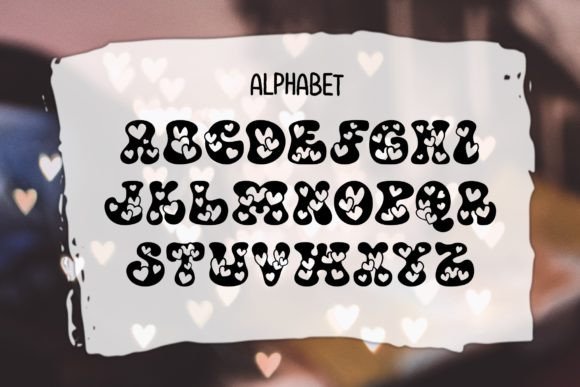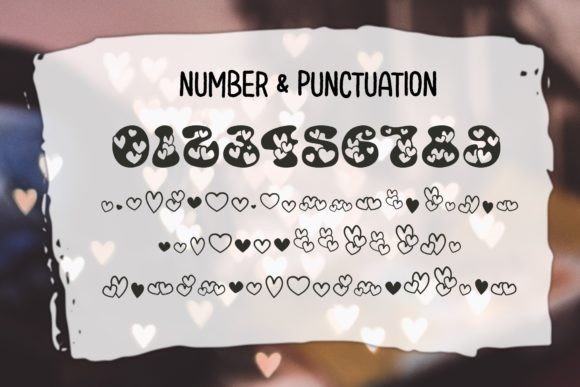
Groovy Love Font: Add a Touch of Whimsy to Your Designs
Are you tired of using the same old fonts in your designs? Do you want to add a touch of personality and whimsy to your projects? Look no further than the Groovy Love Font! This fun and incredibly cute decorative font is perfect for designers and crafters who want to make their designs stand out.
What is Groovy Love Font?
Groovy Love Font is a decorative font that is whimsical and a bit quirky. It’s the perfect addition to any design project that needs a little extra flair. With its unique and playful style, this font is sure to brighten up each of your designs and make them truly unforgettable.
Characteristics of Groovy Love Font
So, what makes Groovy Love Font so special? Here are just a few of its key characteristics:
- Fun and playful: Groovy Love Font is the perfect choice for designers who want to add a little humor and personality to their designs.
- Whimsical and quirky: This font has a unique and offbeat style that’s sure to make your designs stand out.
- Decorative: Groovy Love Font is a decorative font that’s perfect for use in titles, headings, and other design elements.
- Easy to read: Despite its playful style, Groovy Love Font is still easy to read, making it perfect for use in a variety of design projects.
Uses for Groovy Love Font
So, what can you use Groovy Love Font for? The possibilities are endless! Here are a few ideas to get you started:
- Party invitations: Add a touch of whimsy to your party invitations with Groovy Love Font.
- Social media graphics: Use Groovy Love Font to create eye-catching social media graphics that are sure to grab attention.
- Signs and posters: Groovy Love Font is perfect for use in signs and posters, adding a playful touch to your message.
- Craft projects: If you’re a crafter, Groovy Love Font is a great choice for use in your projects, such as handmade cards, scrapbooking, and more.
Tips for Using Groovy Love Font
Here are a few tips for using Groovy Love Font in your designs:
- Use it sparingly: While Groovy Love Font is fun and playful, it can be overwhelming if used too much. Use it sparingly to add emphasis to your design.
- Pair it with other fonts: Groovy Love Font pairs well with other fonts, such as sans serif fonts. Experiment with different pairings to find the one that works best for your design.
- Experiment with colors: Groovy Love Font looks great in a variety of colors. Experiment with different colors to find the one that works best for your design.